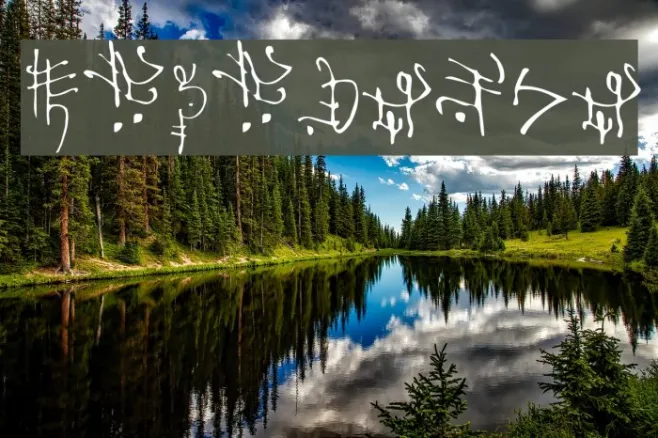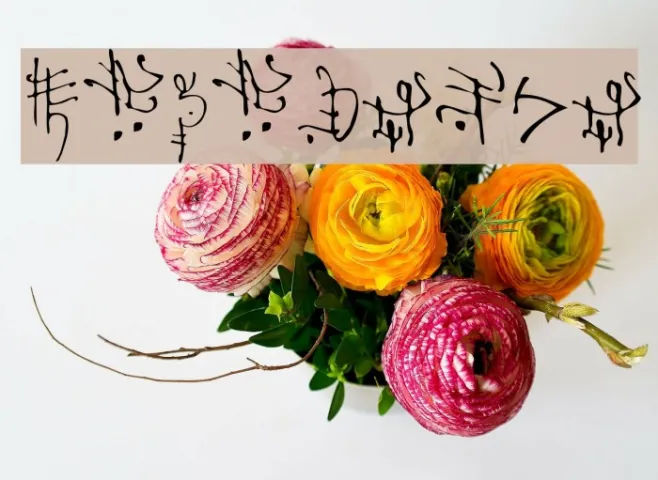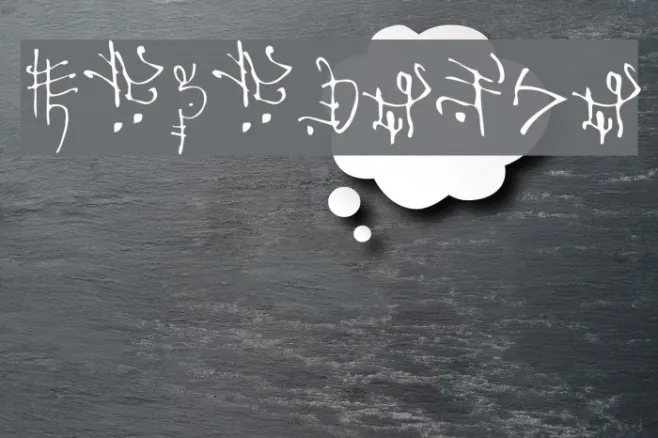
Korohanza Font
Korohanza Description
This font features a highly decorative and abstract style, reminiscent of ancient scripts or calligraphy. The characters are composed of intricate lines and curves, often incorporating dots and unique flourishes that give it an artistic and mysterious appearance. The overall design is fluid and dynamic, with each character appearing as a unique piece of art. The font's complexity and ornamental nature make it suitable for projects that require a touch of elegance and historical or mystical themes.
| Use Case | Logos, Decorative elements, Artistic projects |
| Proposed Projects | Ideal for use in fantasy book covers, historical themed designs, art projects, or as decorative elements in graphic design. |